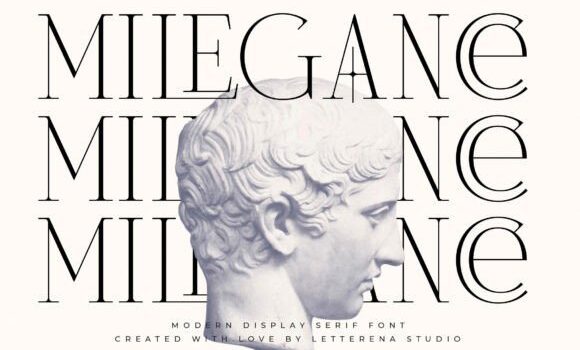
milegance
Milegance Font – Free Download Introduction to Milegance Font Milegance – Modern Display Serif , from Letterena, is a Luxury Serif font, suitable for any projects such as: logos, branding projects, homeware designs, product packaging, mugs, quotes, posters, shopping bags,